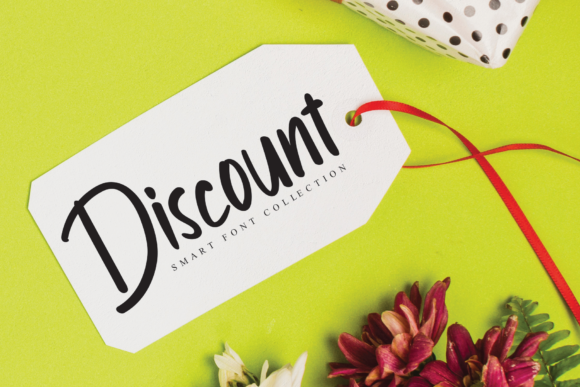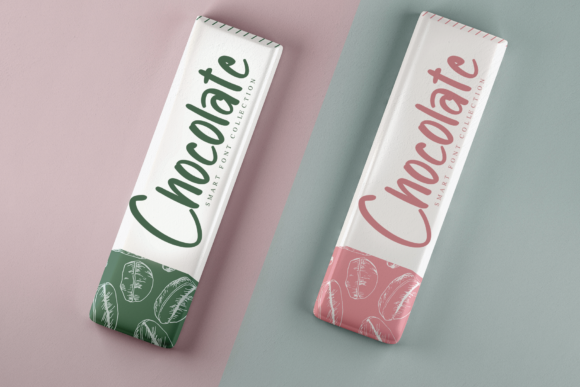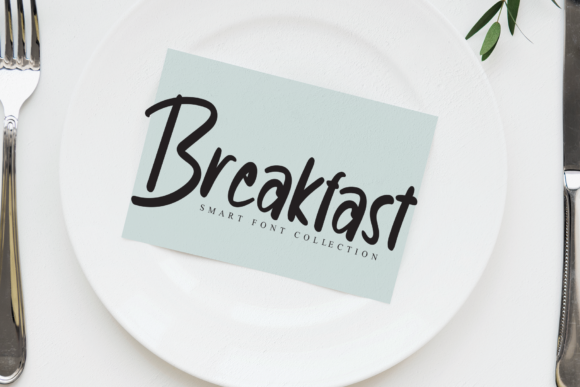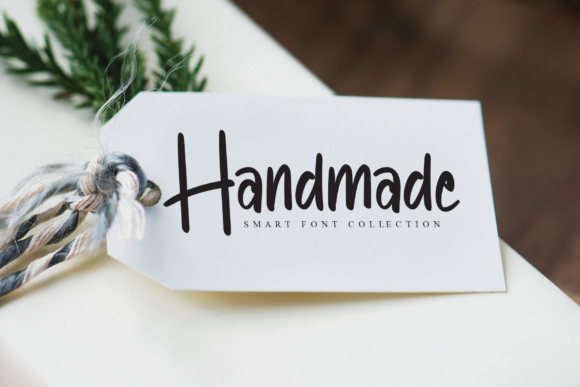
Birthday Font
About Birthday Font
Birthday is a unique handwritten font. This font’s versatility will appeal to a wide range of crafty ideas, from letterheads and titles, to stationery.